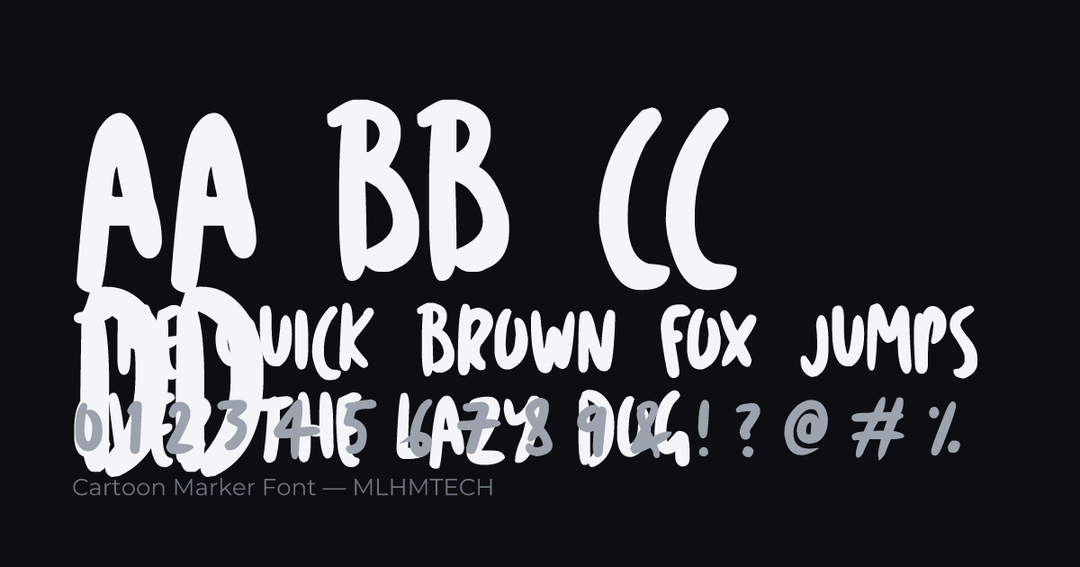
Cartoon Marker Font
Cartoon Marker Font is a playful, hand-drawn typeface that adds a fun, energetic vibe to any project. Ideal for titles, posters, and branding.
Cartoon Marker Font brings a whimsical, hand-lettered feel to your designs. Its bold strokes and irregular edges mimic a real marker, making it perfect for comic-style graphics, children's book covers, party invitations, and social media posts.
This font is easy to read yet full of personality, ensuring your message stands out. Whether you're creating a logo, a poster, or a YouTube thumbnail, Cartoon Marker Font adds a touch of creativity and fun.